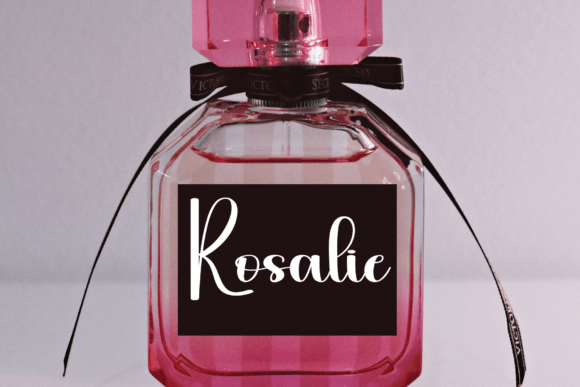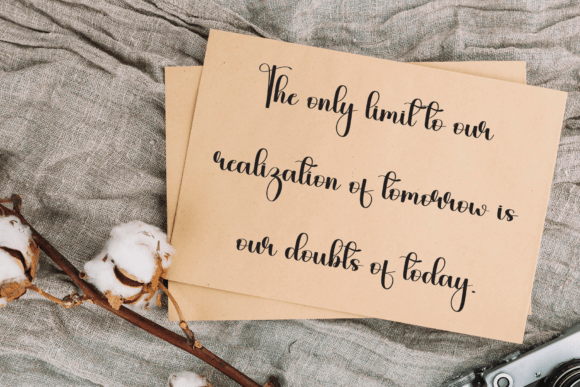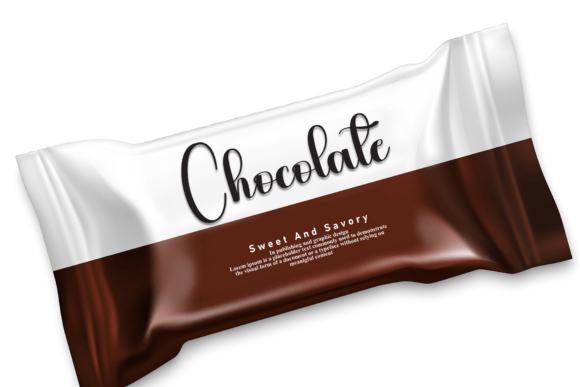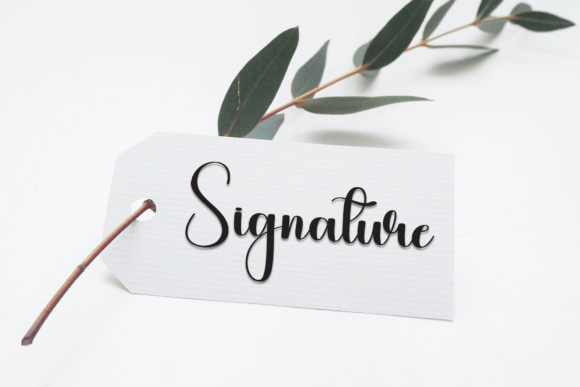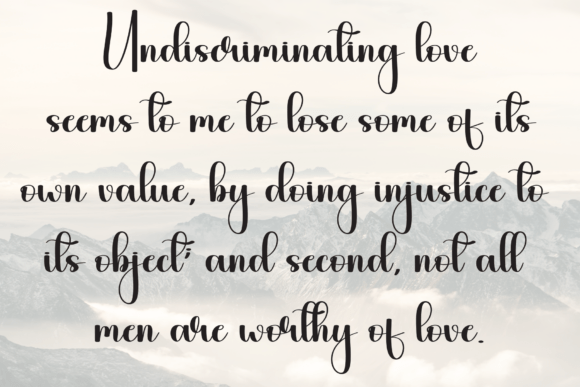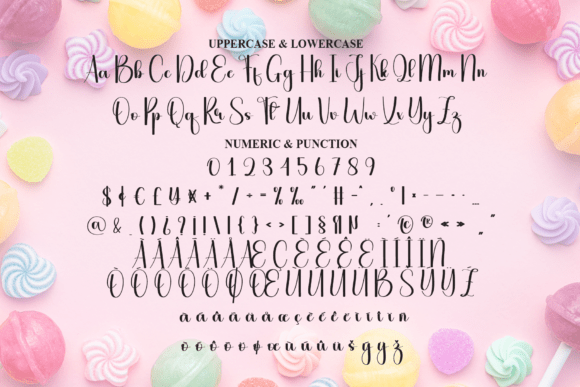
Candy Font: Elevate Your Designs with a Stylish Handwritten Script
In the world of typography, fonts play a crucial role in conveying the tone and personality of a design. For designers and crafters looking to add a touch of elegance and whimsy to their projects, the Candy font is an excellent choice. This stylish handwritten script font seamlessly blends modern sophistication with a playful touch, making it perfect for a wide range of applications.
The Charm of Candy Font
Candy is a beautifully crafted font that boasts fluid strokes and charming curves, giving it a personal and approachable feel. Its unique blend of modern elegance and playfulness makes it an ideal choice for designers looking to create stunning visual content. Whether you’re working on a logo, packaging, or invitation, the Candy font is sure to bring a touch of warmth and sophistication to your project.
Key Features of Candy Font
- Handwritten Script: The Candy font features a beautiful handwritten script that adds a personal touch to any design.
- Modern Elegance: With its fluid strokes and charming curves, the Candy font exudes modern elegance and sophistication.
- Playful Touch: The font’s playful touch makes it perfect for designs that require a bit of whimsy and fun.
- Versatile: The Candy font is suitable for a wide range of applications, including logos, packaging, invitations, and more.
Uses of Candy Font
The Candy font is incredibly versatile and can be used in a variety of design projects. Here are some of the most popular uses of this beautiful font:
- Logos: The Candy font is perfect for creating stunning logos that require a touch of elegance and sophistication.
- Packaging: Add a personal touch to your packaging designs with the Candy font, making your products stand out on store shelves.
- Invitations: Create beautiful invitations for weddings, parties, and other events with the Candy font, adding a touch of whimsy and fun.
- Branding: Use the Candy font to create a consistent brand identity that reflects your company’s personality and values.
Benefits of Using Candy Font
There are many benefits to using the Candy font in your design projects. Here are some of the most significant advantages:
- Unique and Creative: The Candy font is a unique and creative way to add personality to your designs.
- Elegant and Sophisticated: The font’s modern elegance and sophistication make it perfect for high-end designs.
- Easy to Read: The Candy font is easy to read, making it suitable for body text and headlines.
- Customizable: The font is highly customizable, allowing you to adjust its size, color, and style to fit your design needs.
Tips for Using Candy Font
To get the most out of the Candy font, here are some tips to keep in mind:
- Pair with Other Fonts: Pair the Candy font with other fonts to create a unique and visually appealing combination.
- Use for Headlines: Use the Candy font for headlines and titles to add a touch of elegance and sophistication.
- Keep it Simple: Keep your design simple and clean to allow the Candy font to shine.
In conclusion, the Candy font is a stylish handwritten script font that is perfect for designers and crafters looking to add a touch of elegance and whimsy to their projects. With its fluid strokes and charming curves, this font is ideal for logos, packaging, invitations, and more. Its versatility, ease of use, and customizability make it a valuable addition to any designer’s toolkit.